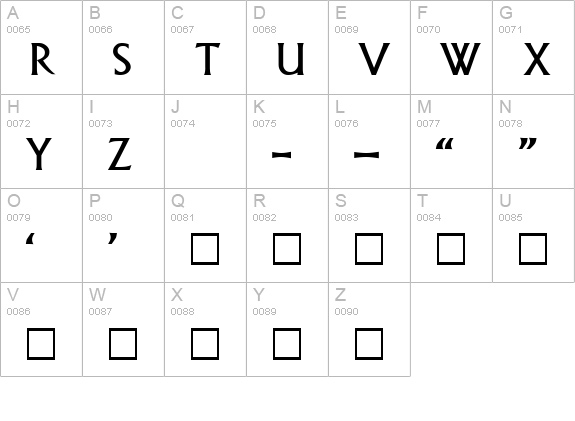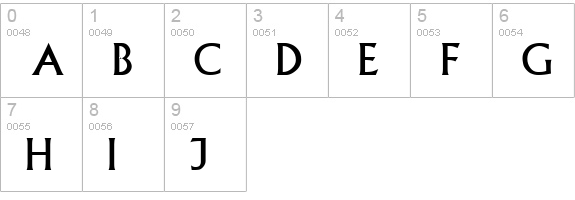
FuriosoTitling Font Details
FuriosoTitling font is a stunning and elegant typeface that exudes power and sophistication. Its bold and dramatic letterforms make it perfect for headlines, titles, and branding materials that demand attention. The font's sharp serifs and strong lines give it a sense of authority and class. What makes FuriosoTitling font even more appealing is that it is available for free download at FontsMarket.com. This means you can elevate your design projects with this premium font without any cost. Whether you are working on a poster, logo, or website design, FuriosoTitling font will make your text stand out and leave a lasting impression. Don't miss out on the opportunity to enhance your designs with this exquisite font - download it for free today at FontsMarket.com.